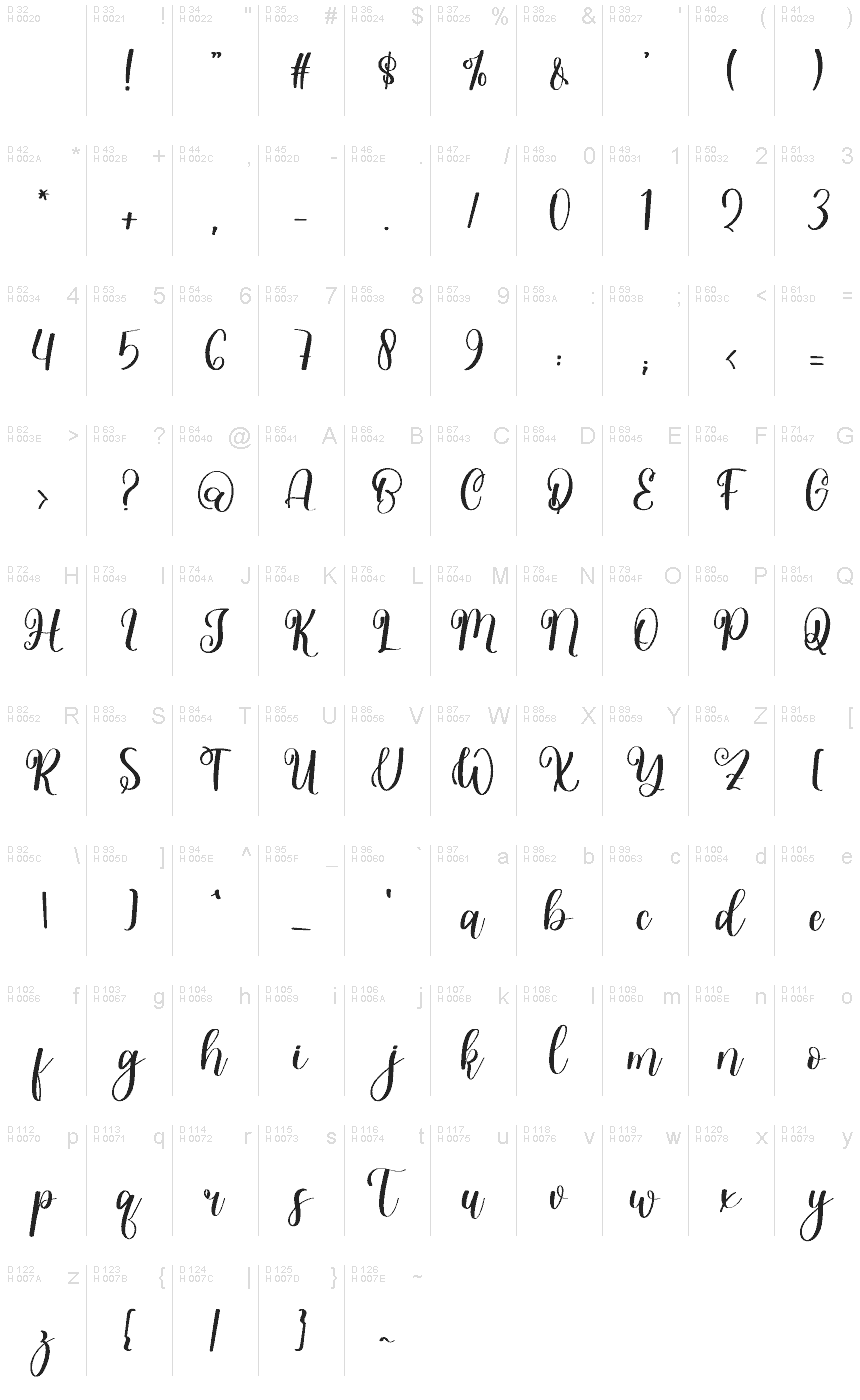
About font is a free calligraphy font designed by Inermedia Studio. With its elegant and flowing style, the font carries a traditional influence that’s romantic and expressive. It presents a decorative yet sophisticated appearance making it suitable for various design approaches.
Use it within wedding invitation cards, greeting cards, personal journals titles, quotes, event posters, social media stories and posts. Take advantage of its legibility within clothing brand logos and typography-based t-shirt designs or in signage boards in restaurants or coffee shops.